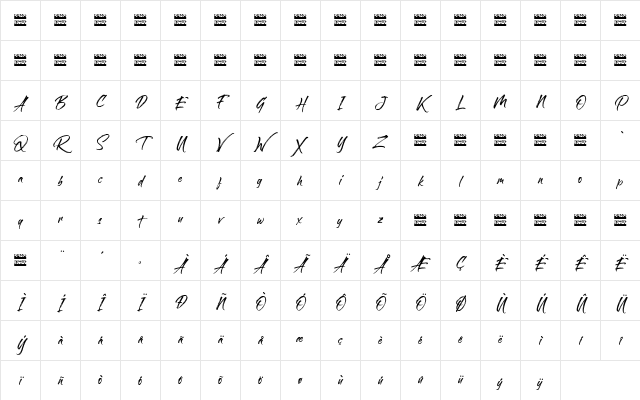
Sandbrush Demo flows with the natural rhythm of handwritten lettering, making it ideal for designs that call for warmth and personal expression.
Font Pairing: Combine Sandbrush Demo with a simple geometric sans for maximum contrast - the tension between flowing curves and clean structure is a classic typographic pairing.
Pro Tip: Use Sandbrush Demo for short runs of text - names, titles, or taglines. Extended body copy in script faces tires the eye quickly.